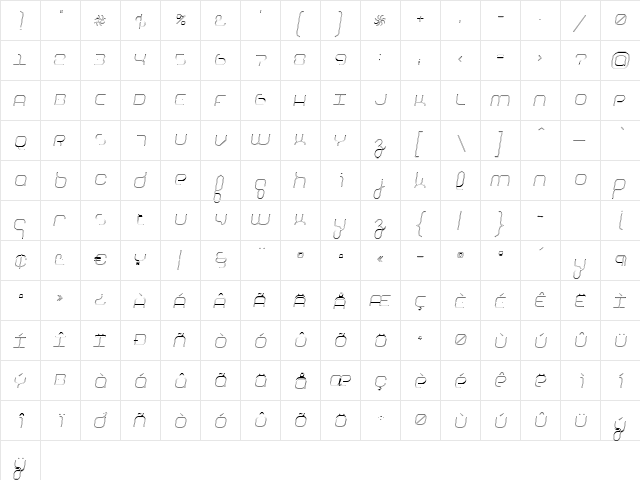
BasixOutline Oblique Regular
Design Context for BasixOutline Oblique Typeface
BasixOutline Oblique is built around its visual character rather than neutral utility — its distinctive forms are designed to make an impression at display sizes. The slanted form adds forward momentum and visual energy.
Font Pairing: Pair with a clean neutral sans-serif for body copy to let BasixOutline Oblique's character lead without overwhelming the composition.
Pro Tip: Use BasixOutline Oblique exclusively at display sizes — it was designed to be seen, not read at length. Let a neutral companion handle body copy.